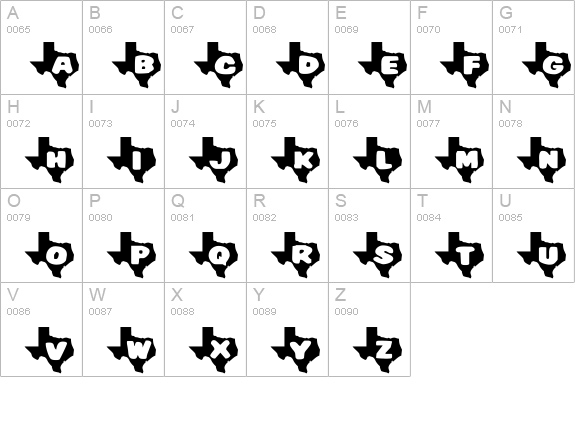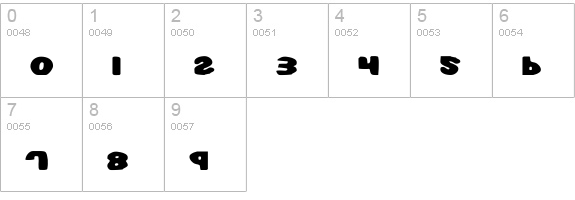
Texas Font Details
Introducing Texas, a stunningly versatile font that captures the spirit and charm of the Lone Star State. With its bold and distinctive letterforms, Texas is the perfect choice for any project that aims to make a lasting impression. Whether you're designing a logo, creating eye-catching headlines, or adding a touch of Texan flair to your website, this font will elevate your work to new heights. Texas is a true embodiment of the Texan spirit - strong, confident, and full of character. Its unique design pays homage to the state's rich cultural heritage, combining elements of traditional western typefaces with a modern twist. The result is a font that stands out from the crowd, commanding attention and leaving a lasting impact. One of the most remarkable features of Texas is its versatility. This font is incredibly adaptable, effortlessly bridging the gap between classic elegance and contemporary style. It can be used in a wide range of applications, whether you're aiming for a vintage-inspired look or a sleek and modern aesthetic. And the best part? Texas is available for free download at FontsMarket.com. That's right, you can get your hands on this exceptional font without spending a dime. Simply visit FontsMarket.com, search for Texas, and start creating with this stunning typeface. Whether you're a professional designer or an enthusiastic hobbyist, Texas is a must-have addition to your font collection. So, if you're ready to infuse your designs with the undeniable Texan charm, look no further than Texas font. Download it for free at FontsMarket.com and let your creativity shine like the Lone Star State itself.